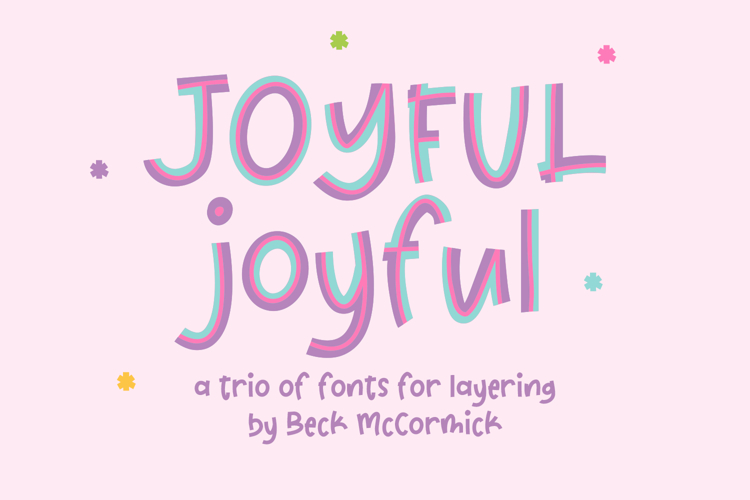
Say hello to Joyful Joyful, a playful font trio, sure to add a fun touch to your creative project. Use Joyful Joyful fonts individually, or mix & match versions to create a fun layered effect. Joyful Joyful is best for feminine crafty projects or SVG design businesses, farmhouse decor and crafts, logos, branding, marketing materials, social media graphics, or shirt design.
Joyful Joyful has three versions - solid, inline, and partial, and they each include:
- uppercase characters A-Z programmed into both upper & lowercase spots
- numbers 0-9
- punctuation